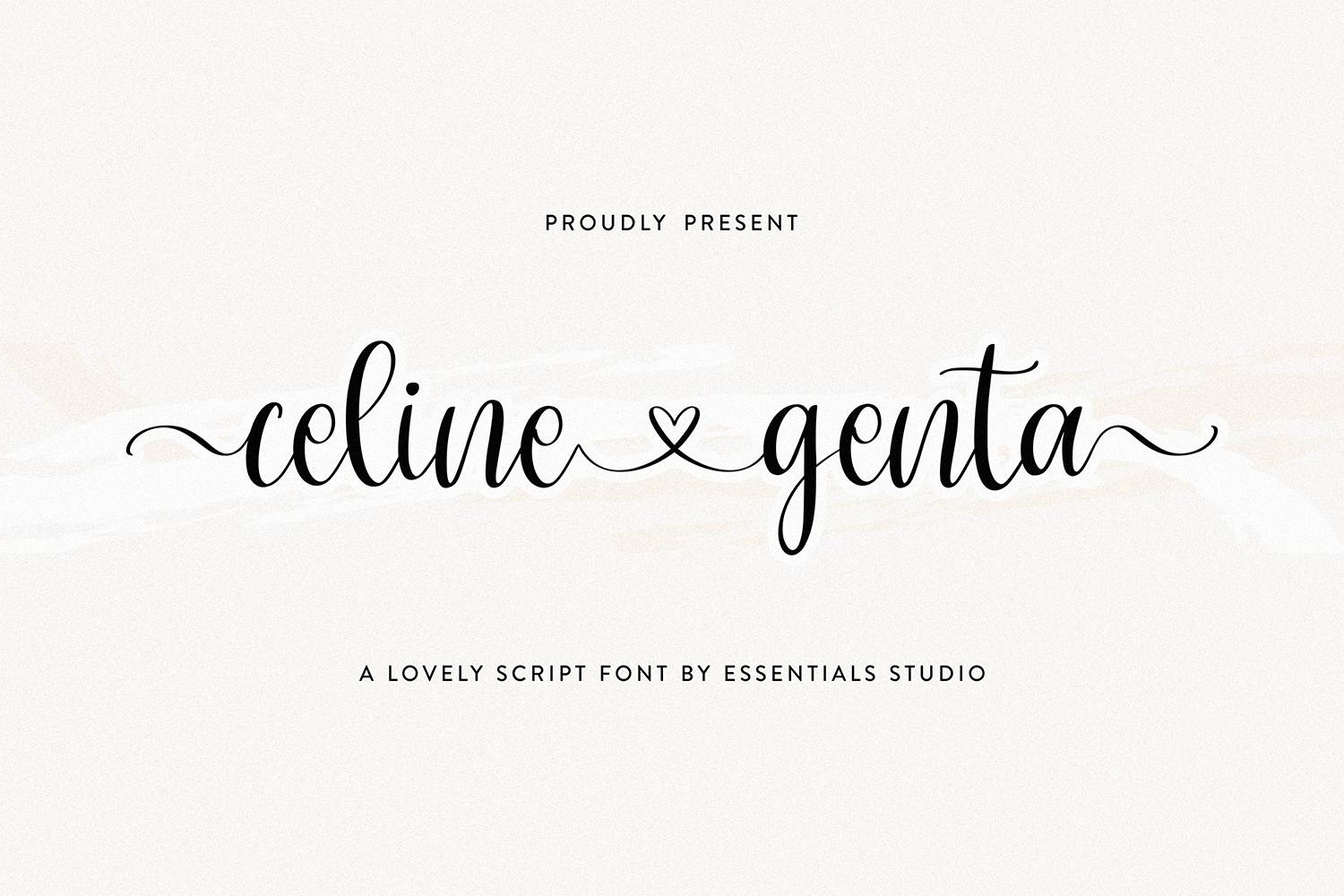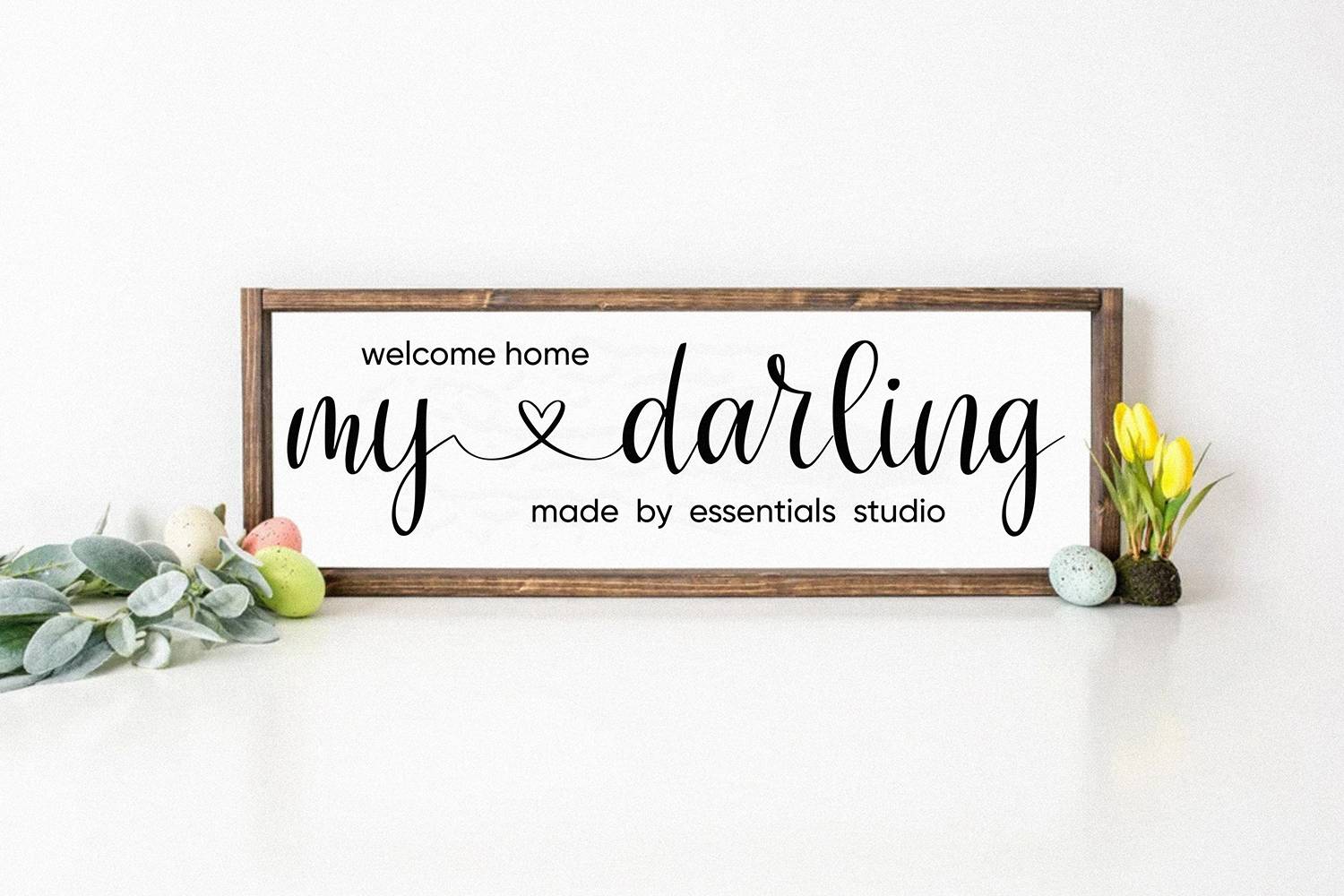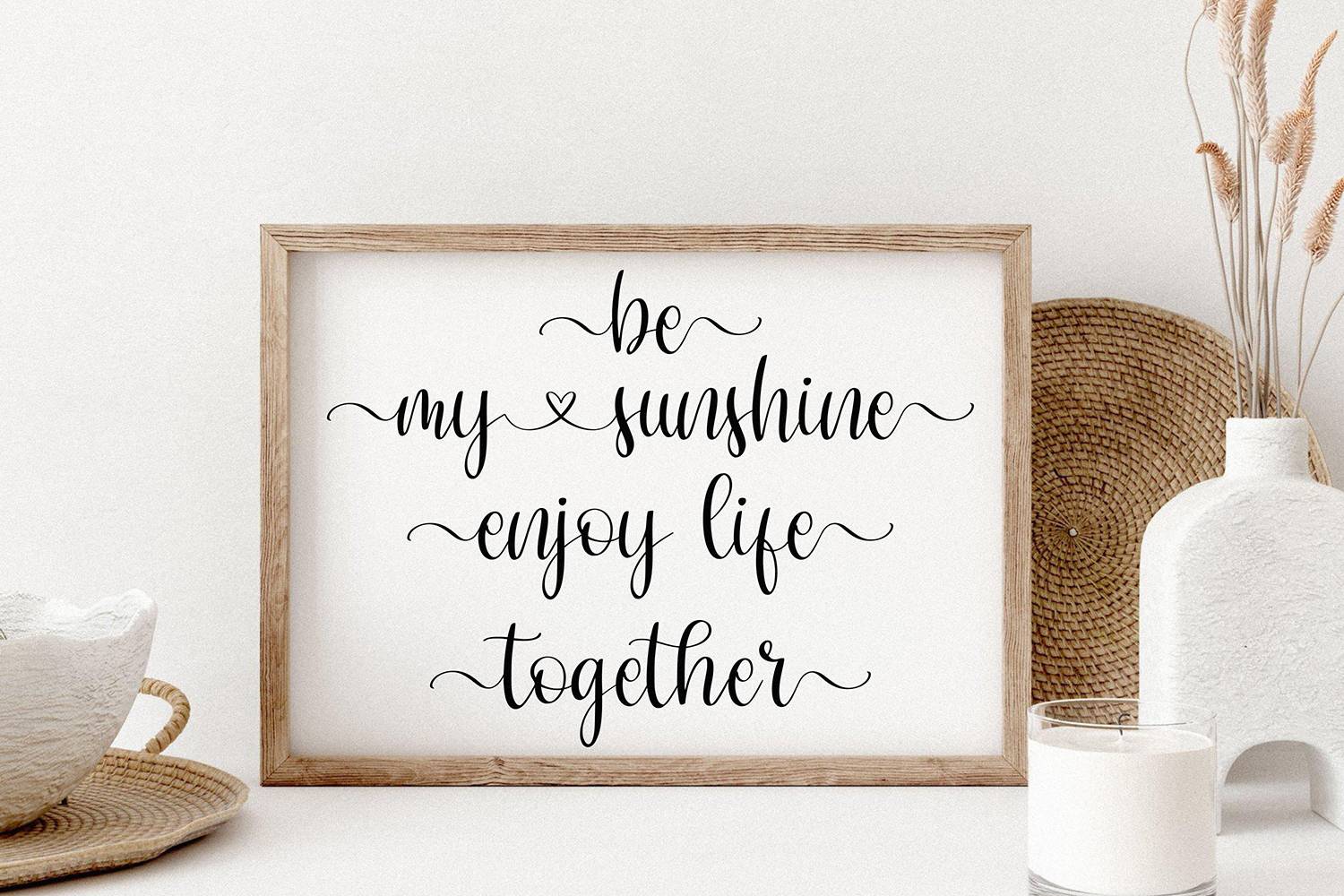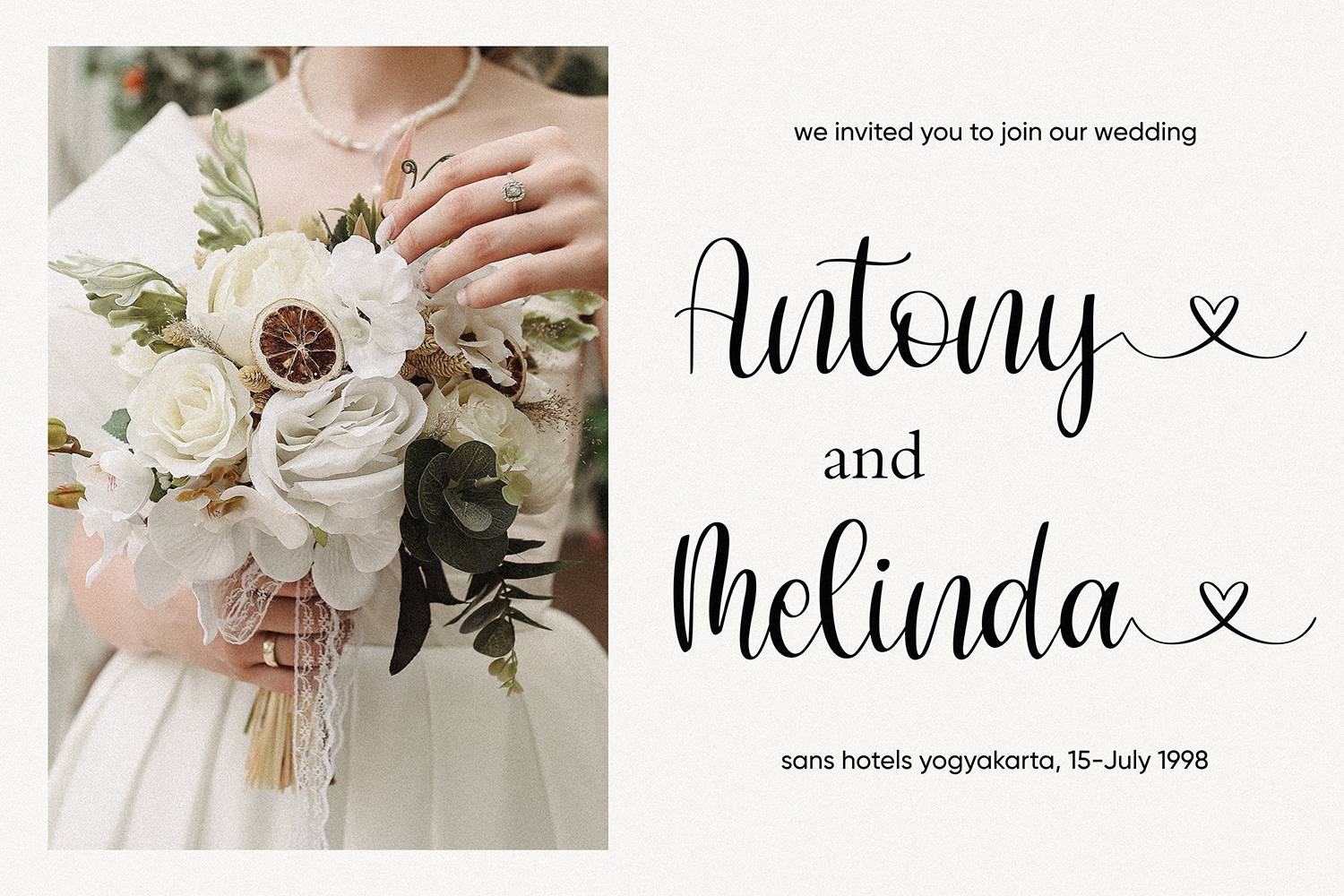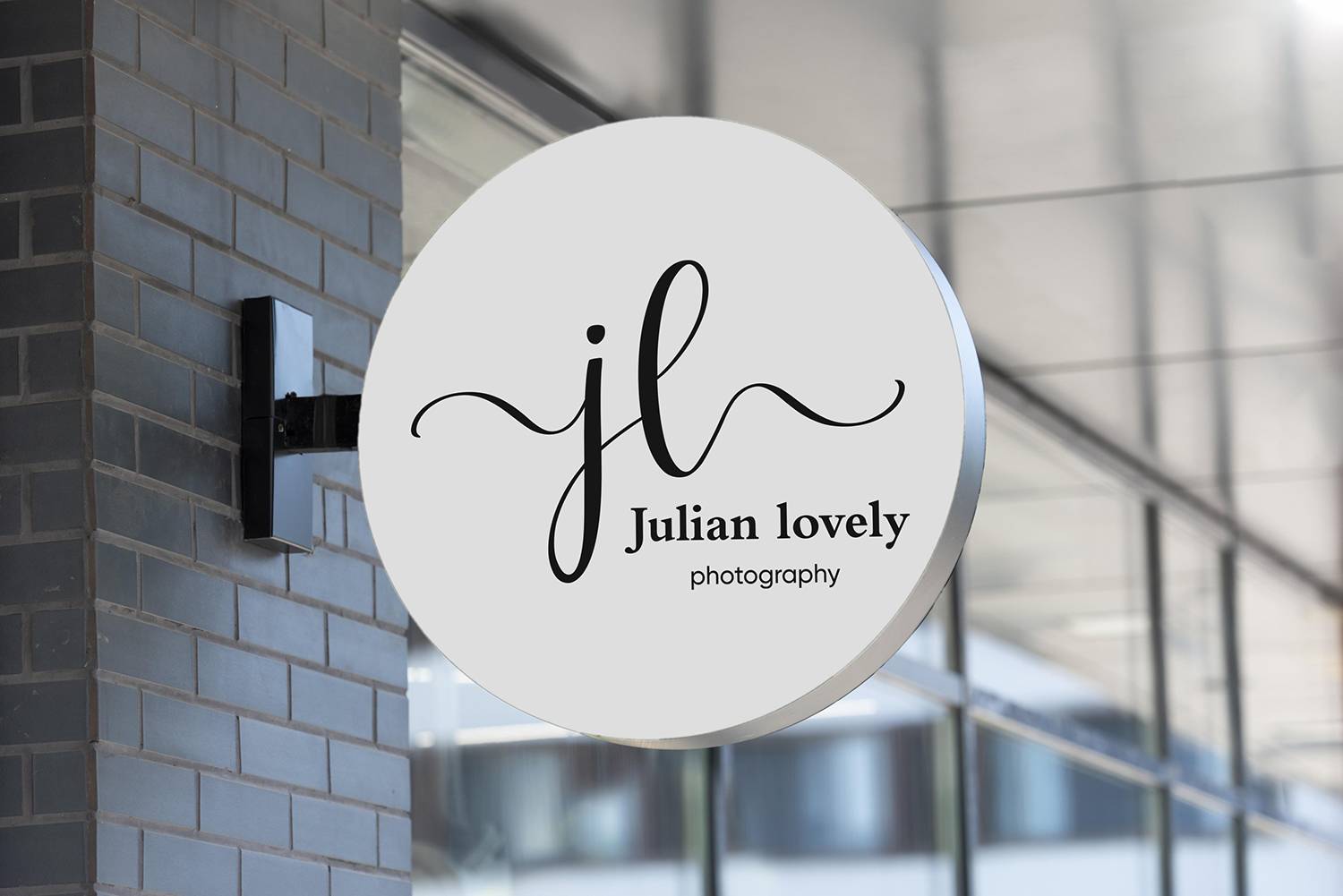
Celine Genta is an elegant script font with a delicate, handwritten feel characterized by slender strokes and graceful, flowing letterforms. It combines a light weight with a moderately tall x-height and playful, curvy details that give it a refined yet approachable personality, perfect for fashion branding, invitations, and stylish editorial designs. Its charming and sophisticated style makes it ideal for projects looking to convey a sense of luxury and creativity with a personal touch.
| Font family | Celine Genta Font |
| Designer | Sulthan Mada Maulana Tsani |